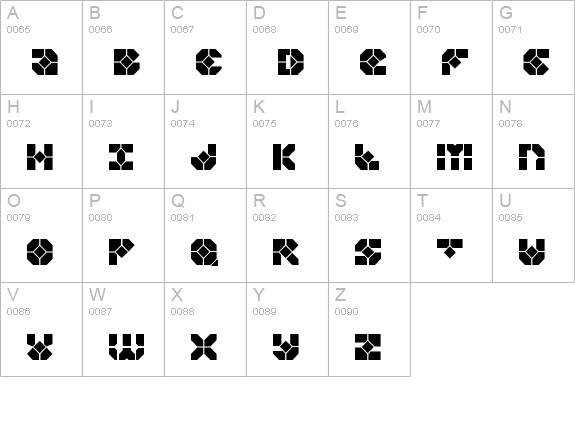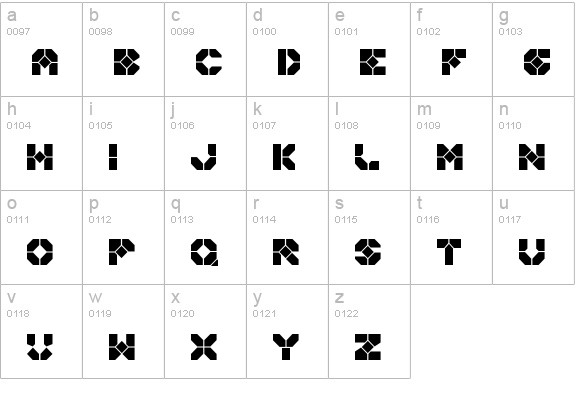
Zoom Runner Font Details
Zoom Runner is a donationware font in the Modern > Geometric category, designed by Iconian. It has been downloaded 205 times and is available for Windows, Mac and Linux.
Introducing Zoom Runner font, a dynamic and modern typeface perfect for adding a touch of energy and movement to your design projects. This font is designed with sleek and stylish lines that evoke a sense of speed and agility, making it ideal for sports-related designs, posters, and branding materials. The bold and eye-catching characters of Zoom Runner will capture the attention of your audience and make your message stand out.